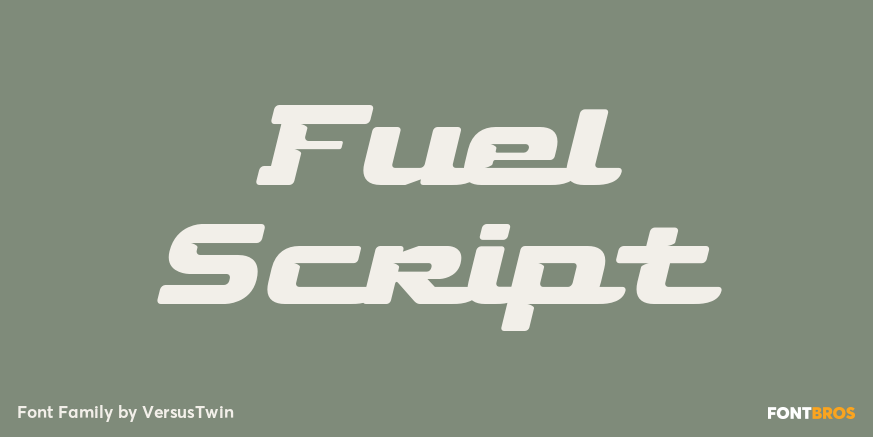
Fuel Script
About Fuel Script
The Fuel Script typefaces turn the modern update of a techno sans towards that of baseline automotive script lettering with retro stylings while retaining the same soft rounded corners and decorative inktraps. Stylistic Alternates included within all…